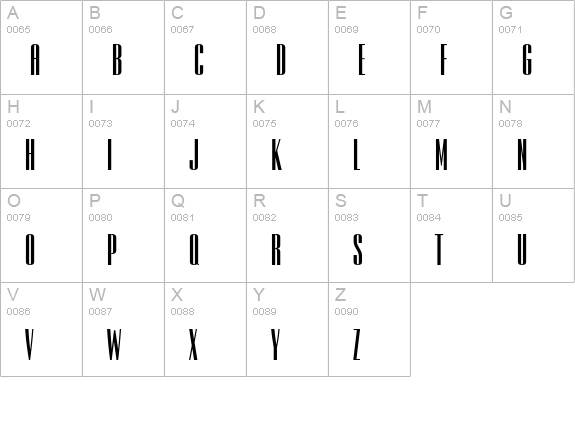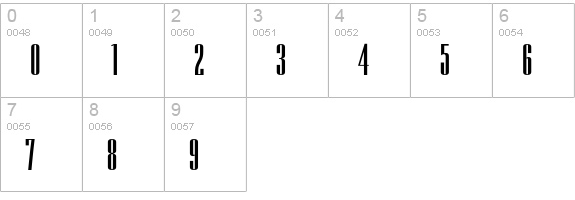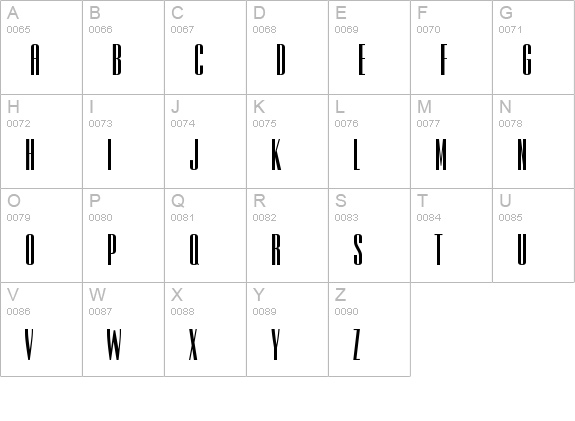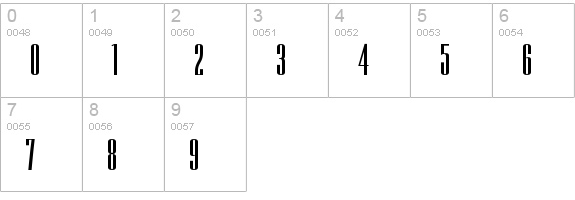
Empire-Black is a maximum-weight, dramatic variant in the Empire typeface family \xE2\x80\x94 well suited to maximum-impact headlines, posters, and packaging.
Empire-Black font is a bold and elegant typeface that exudes power and sophistication. Its sleek design and sharp lines make it perfect for creating eye-catching headlines and titles. The rich black color of this font commands attention and adds a touch of luxury to any design project. What's even better is that Empire-Black font is available for free download at FontsMarket.com. This means you can easily add this stunning font to your collection without any cost. Whether you're working on a professional presentation, a creative project, or simply want to elevate your text designs, Empire-Black font is the ideal choice. Download it now and make a statement with your typography!